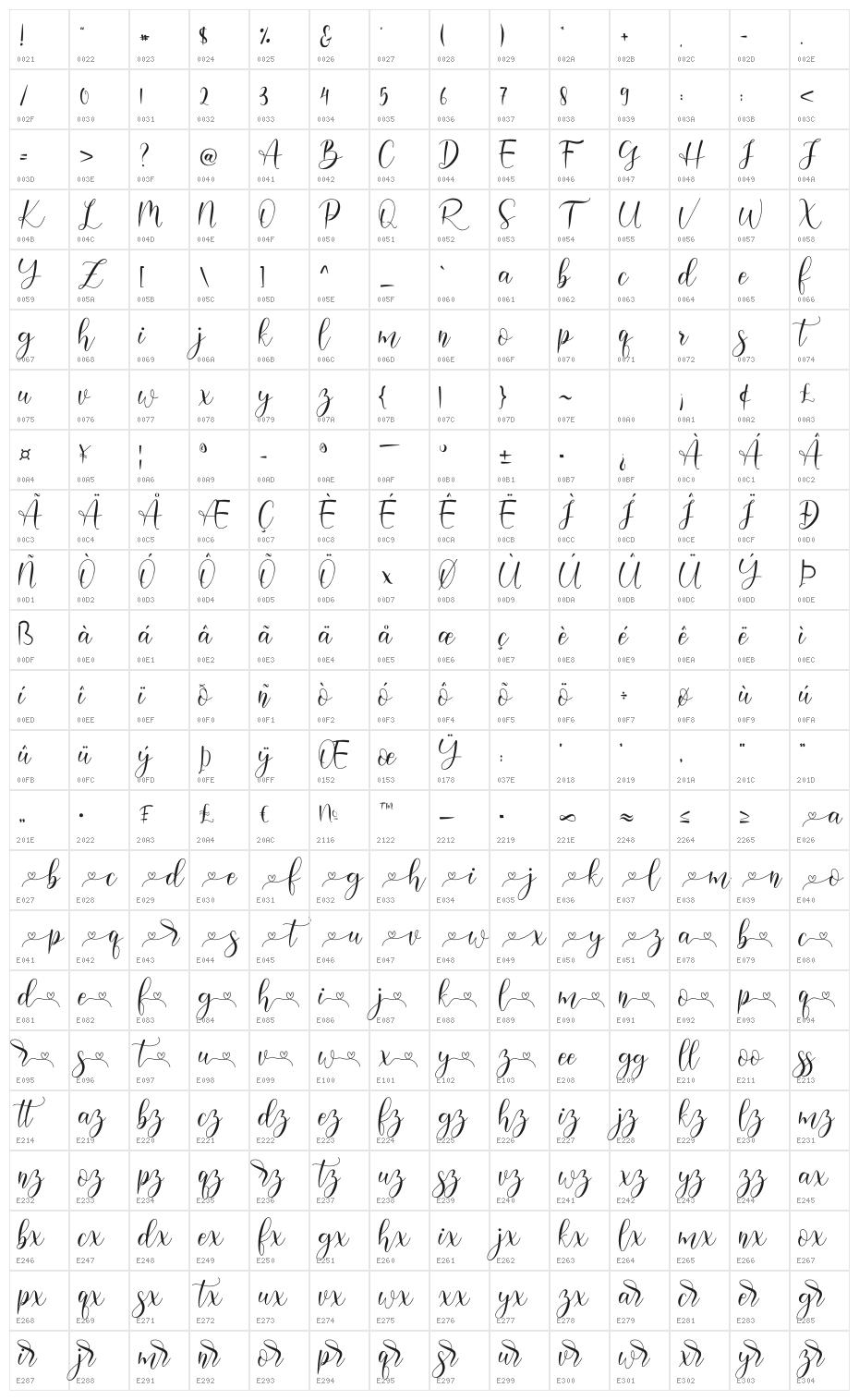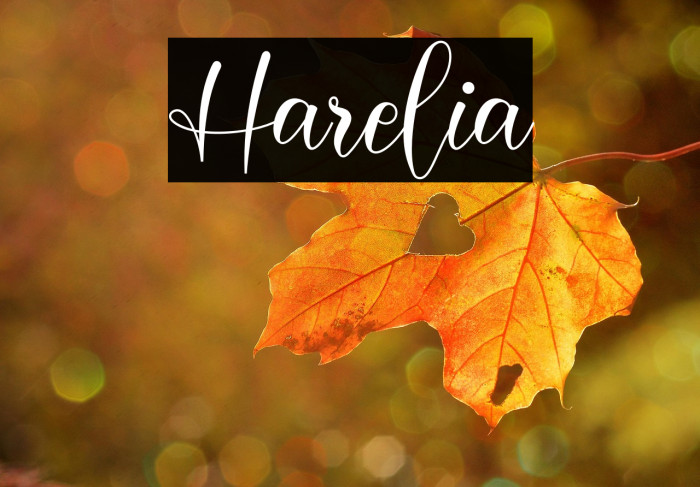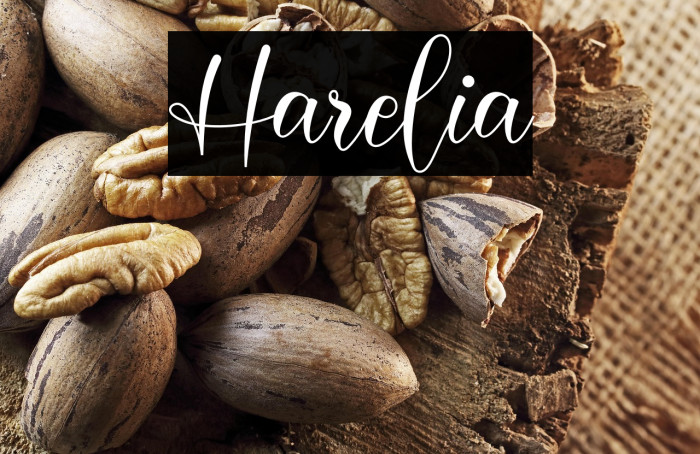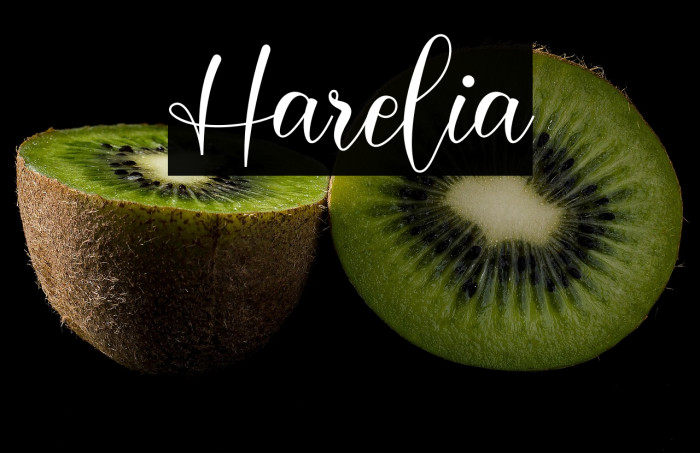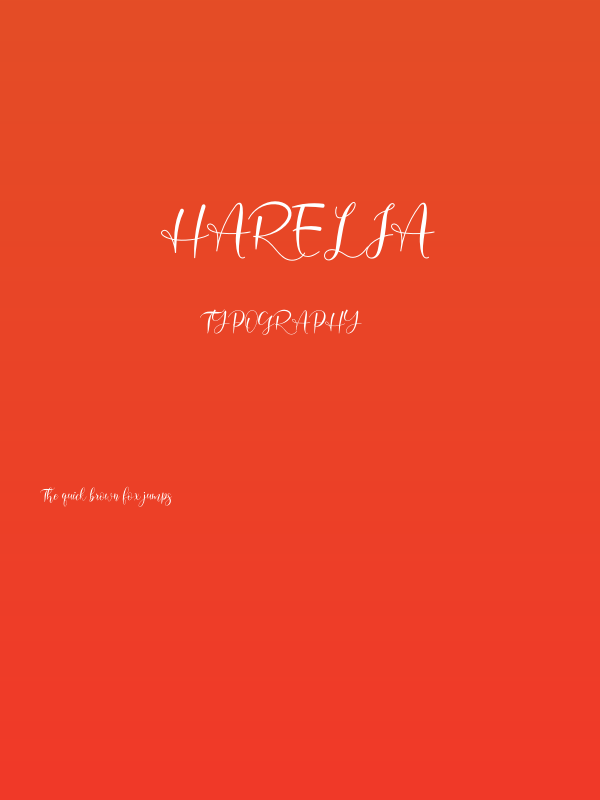
Harelia Font
Harelia Description
This font features an elegant and flowing script style, characterized by its smooth, cursive strokes and graceful loops. The uppercase letters are tall and slender, with a slight slant that adds a sense of movement and fluidity. The lowercase letters maintain a consistent style, with some characters featuring distinctive flourishes that enhance the overall aesthetic. The numerals are designed to complement the script style, maintaining the same elegant curves. Special characters are seamlessly integrated, ensuring versatility in various design contexts. This font exudes a sense of sophistication and charm, making it ideal for projects that require a touch of elegance.
| Overall Style | Elegant, Sophisticated |
| Use Case | Headlines, Invitations, Branding |
| Proposed Projects | Ideal for wedding invitations, greeting cards, branding, and elegant logos. |